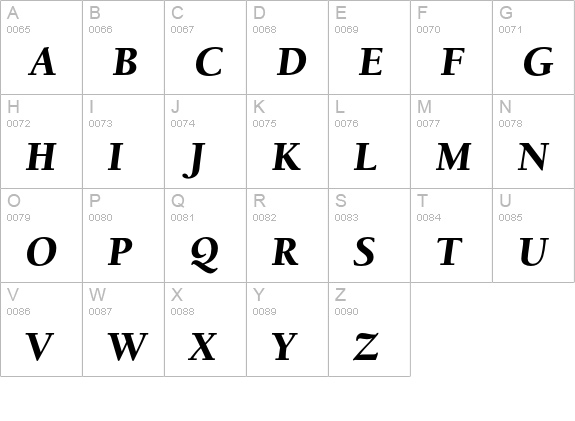
BerkeleyOldStyleEF-BlackItalic Font Details
The BerkeleyOldStyleEF-BlackItalic font is a bold and elegant typeface that exudes sophistication and class. Its sleek design and strong presence make it perfect for creating impactful headlines, titles, and branding materials. The sharp italicized style adds a touch of drama and flair to any project, making a lasting impression on viewers. What makes this font even more appealing is that it is completely free to download at FontsMarket.com. Whether you're a designer looking to add a touch of luxury to your work or a business owner wanting to elevate your brand, the BerkeleyOldStyleEF-BlackItalic font is a versatile and reliable choice. Download it today and unleash your creativity with this timeless and striking typeface.